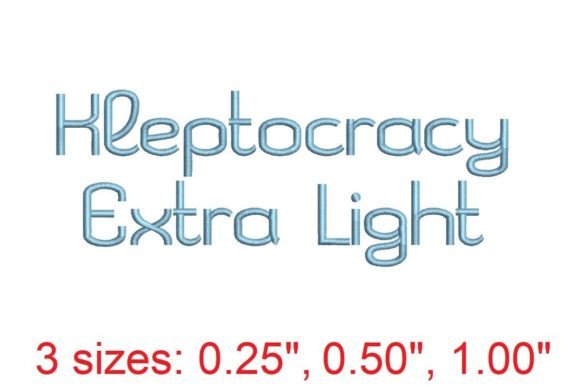
Kleptocracy EX LT Embroidery Font Review
As an embroidery designer with years of experience, I always approach new machine embroidery designs with a mix of curiosity and practicality. When I first encountered the Kleptocracy EX LT Embroidery Font, I was immediately drawn to its elegant script style. This is more than just a font—it’s a tool for creating meaningful, personalized gift items that resonate emotionally with customers.
The First Impression: Sophistication Meets Charm
Kleptocracy EX LT Embroidery Font exudes a sense of refinement. Its flowing, cursive lettering feels both classic and modern, making it versatile for a wide range of projects. The level of detail is impressive, with subtle flourishes that add character without overwhelming the design. It has a soft, romantic feel that works well for wedding gifts or baby embroidery, but it also carries a timeless elegance that suits family keepsakes and custom tote bags.
When I first tested the Kleptocracy EX LT Embroidery Font on a sample fabric, I noticed how it brought a sense of handmade quality to the finished product. It doesn’t feel mass-produced; instead, it feels like a carefully crafted addition to any personalized gift.
Where Kleptocracy EX LT Excels: Personalized Gift Applications
This embroidery font shines in applications where personalization matters most. For example, when I used it on a baby blanket, the script added a touch of warmth and intimacy that made the gift feel truly special. It also worked beautifully on a kitchen towel, giving it a refined look that would appeal to those looking for a unique handmade product.
For wedding gift designers, Kleptocracy EX LT Embroidery Font is a strong choice. Whether it's embroidered on a pillow cover, a towel, or a custom apron, the font adds a sense of luxury and thoughtfulness. It’s perfect for creating a memorable keepsake that couples will cherish.
Etsy sellers and small shop product creators will appreciate how this font can elevate their listings. A simple tote bag with Kleptocracy EX LT Embroidery Font can transform into a standout item that catches the eye and tells a story.
Considerations for Use: Where to Be Cautious
While Kleptocracy EX LT Embroidery Font is highly versatile, there are some scenarios where it may not perform as well. On small lettering, the details can become lost, especially if the stitch density is too low. Similarly, on delicate fabrics or thick towels, the font might not sit as smoothly as it does on lighter, more even materials.
Stretchy baby clothes can also be a challenge. The font’s intricate details may not hold up well under repeated stretching and washing. For curved surfaces or dark fabrics, it’s important to test the design thoroughly before committing to a full batch of custom embroidery.
Impact on Giftability and Customer Trust
One of the biggest advantages of Kleptocracy EX LT Embroidery Font is how it enhances the perceived value of a personalized gift. Customers often associate intricate, well-designed embroidery with higher quality, and this font delivers that impression consistently.
As a handmade product, it helps build trust between the seller and the buyer. The attention to detail in the Kleptocracy EX LT Embroidery Font makes it clear that the item was made with care, which strengthens the emotional connection between the customer and the gift.
For digital product sellers and custom embroidery providers, this font can also improve buyer engagement. A visually appealing embroidery file can make a big difference in how customers perceive the value of a printable mockup or a downloadable embroidery file.
Practical Tips for Using Kleptocracy EX LT Embroidery Font
Before using Kleptocracy EX LT Embroidery Font on real customer orders, I always recommend testing it on scrap fabric. This allows you to see how the design looks in practice and make any necessary adjustments.